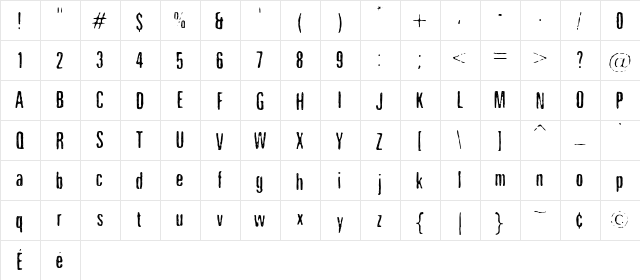
Nicotine Stains Regular
| Designer | S. John Ross |
Design Context for Nicotine Stains Typeface
Nicotine Stains takes a measured approach to typography — its balanced proportions and neutral character make it a reliable workhorse for both digital and print work.